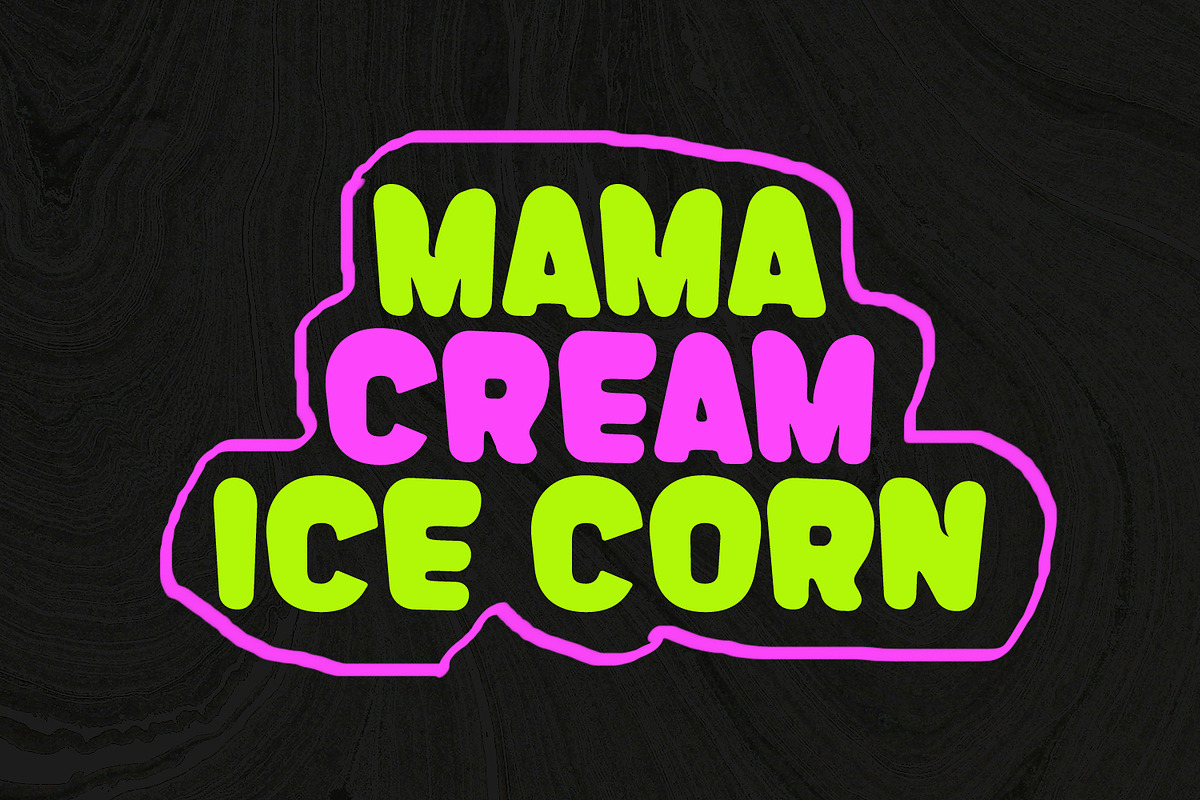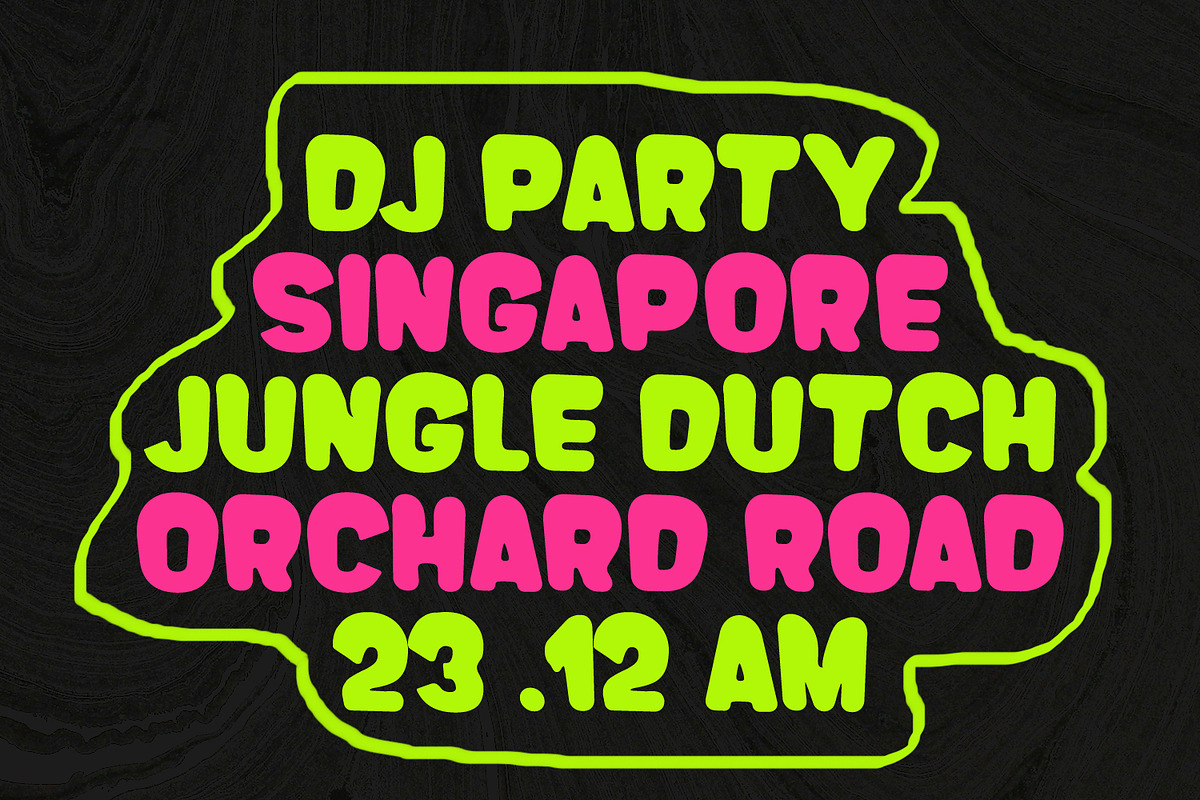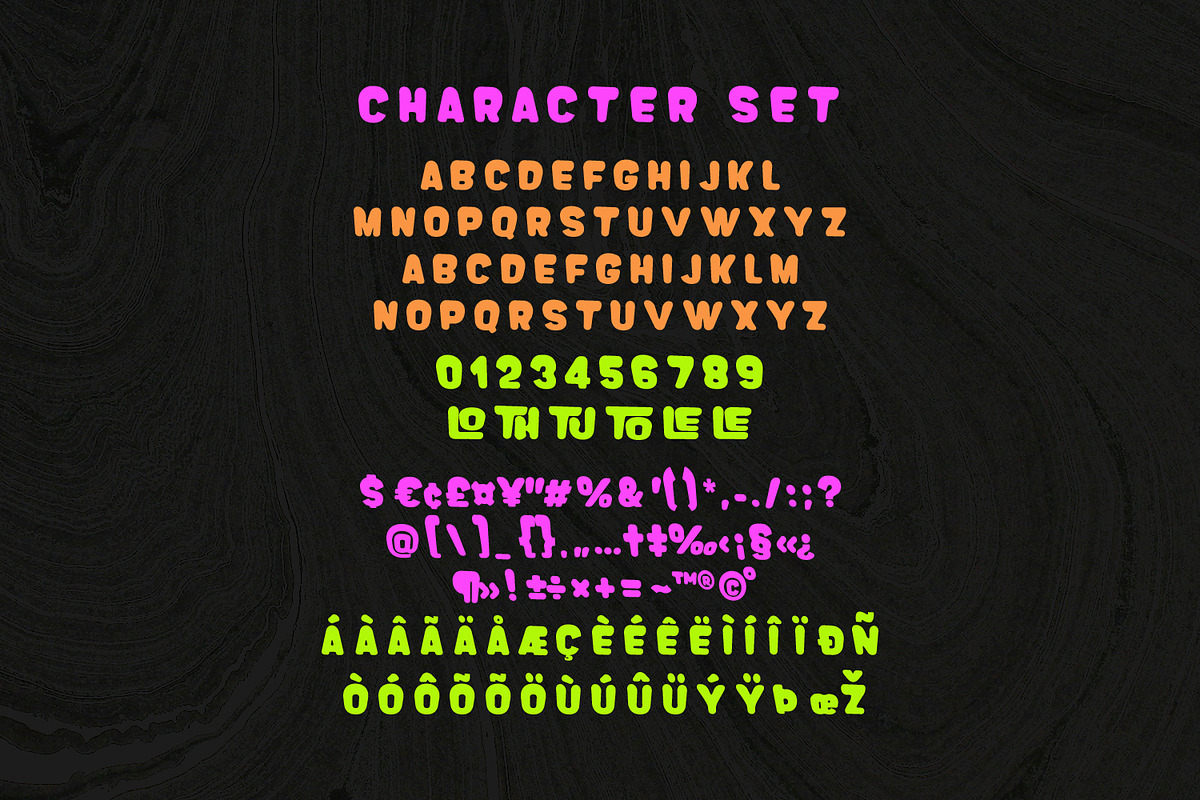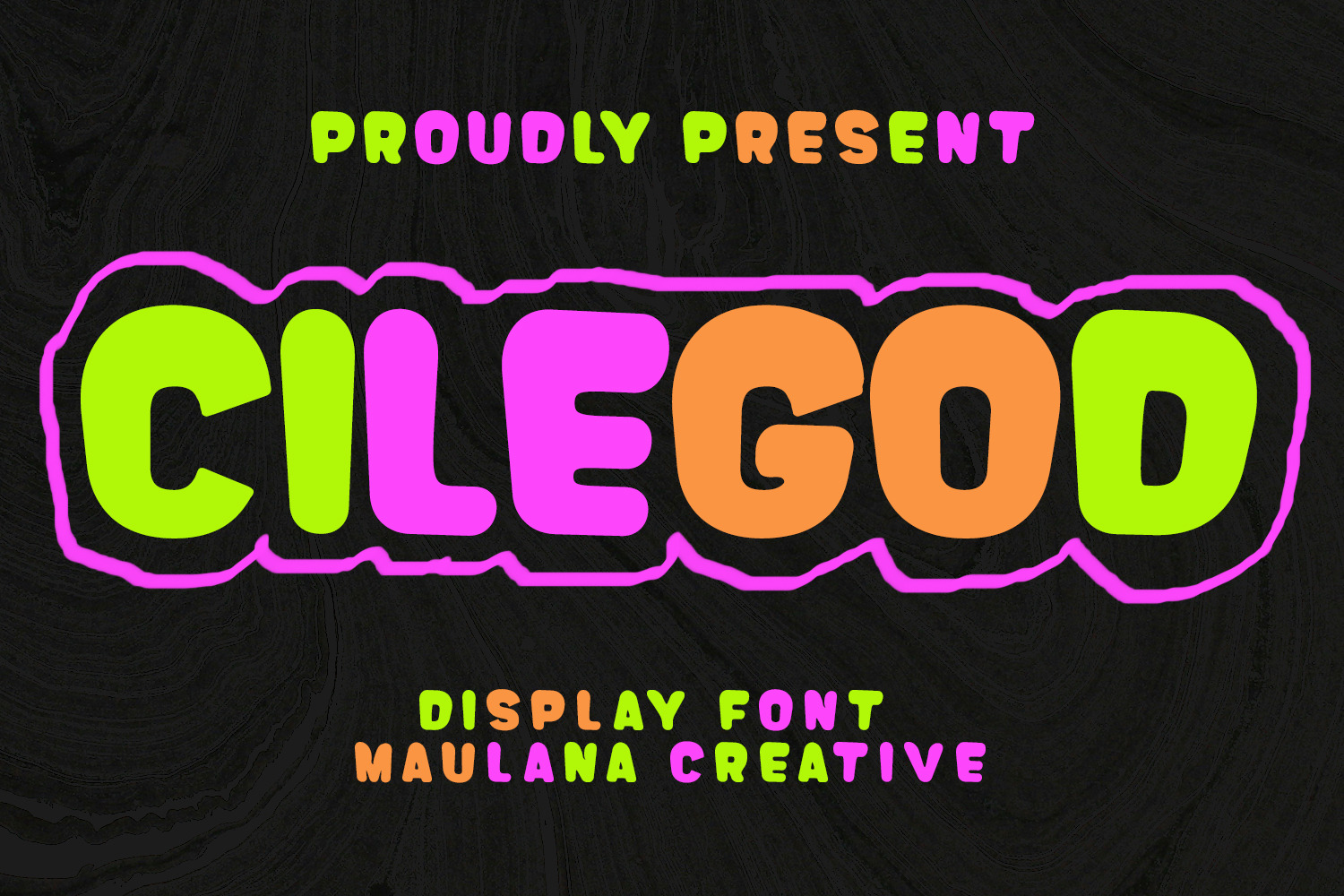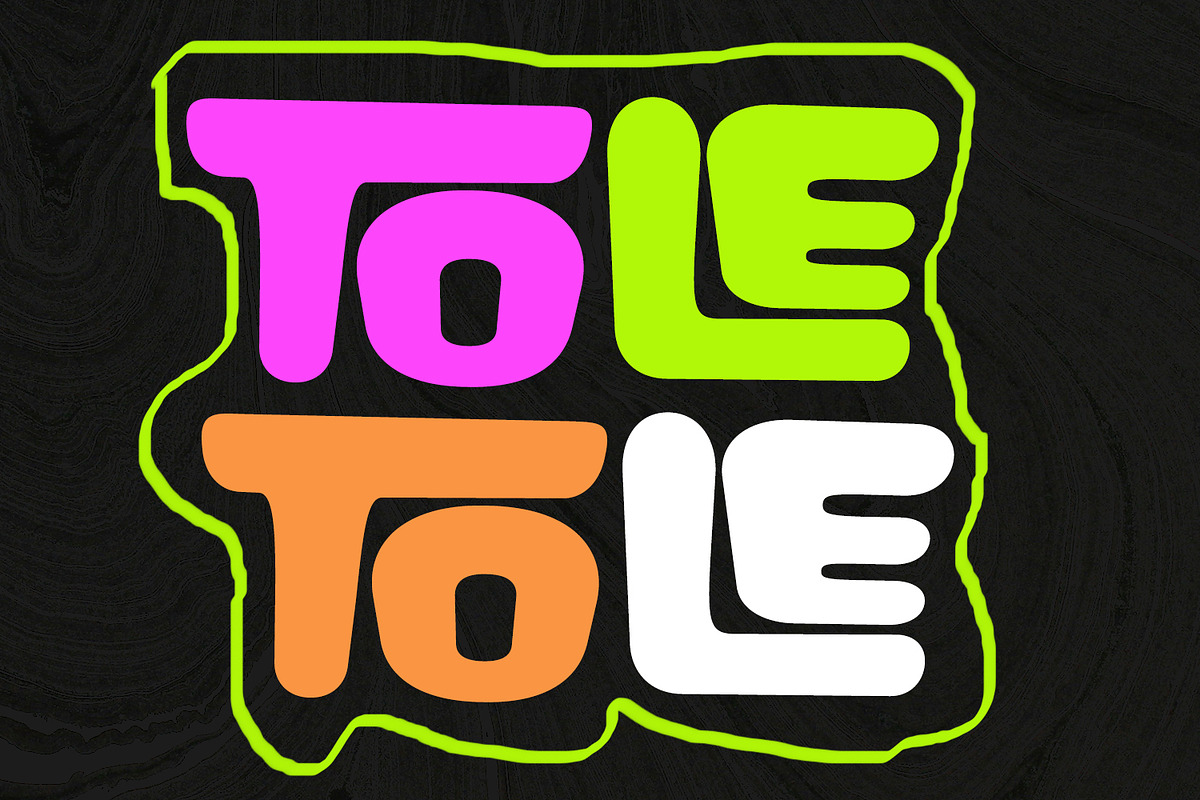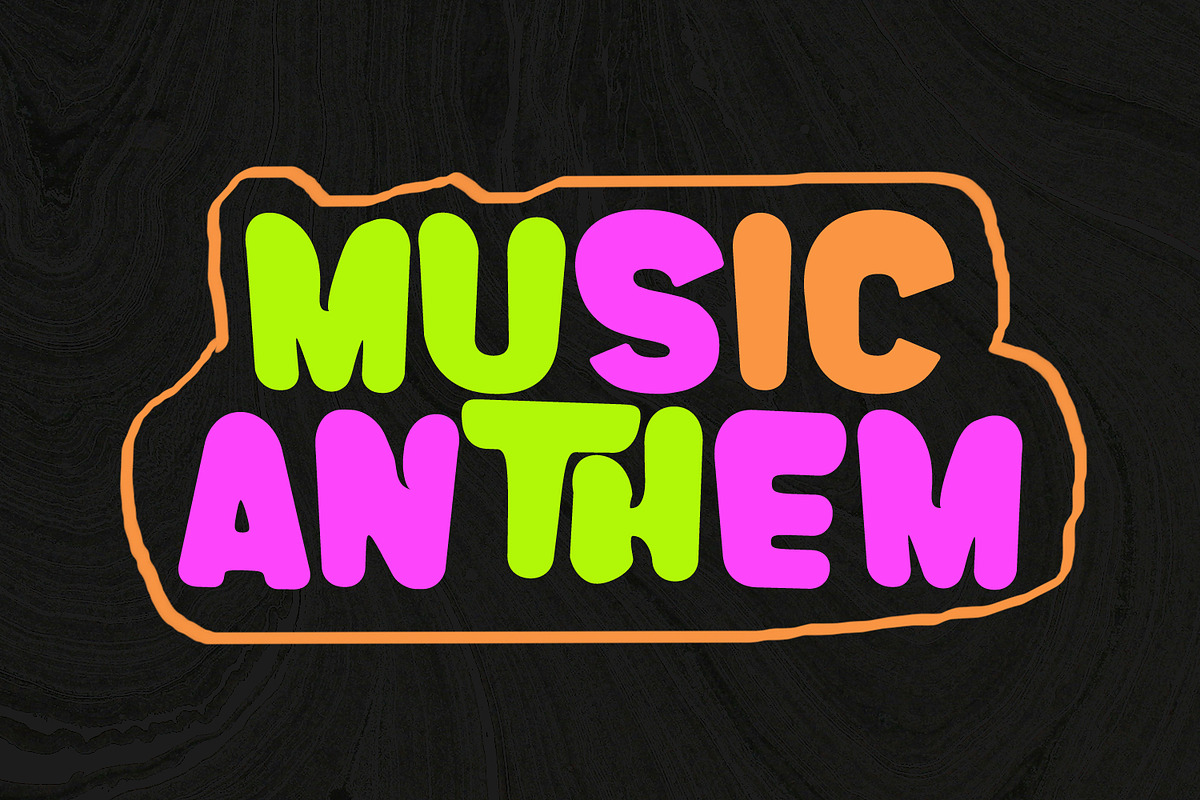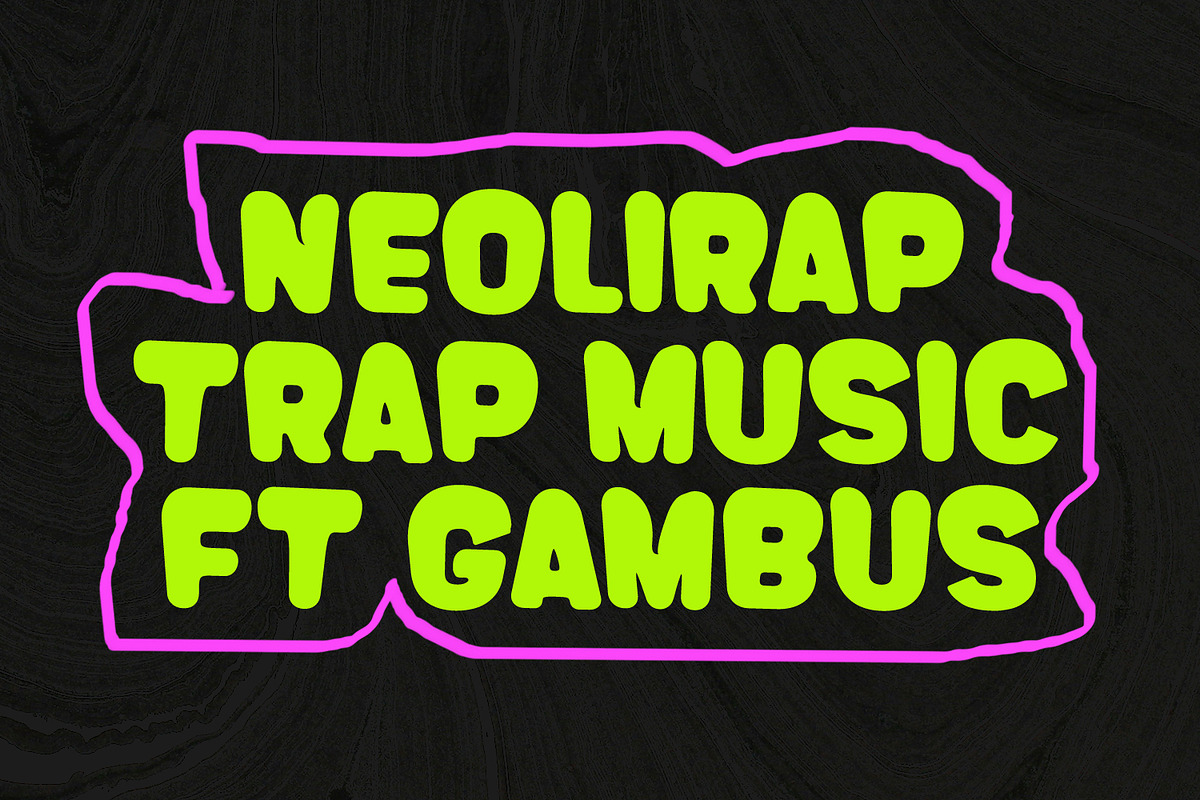
Cilegod Display Font
Cilegod is a modern display font. With bold stroke, fun character with ligatures. To give you an extra creative work. Cilegod font support multilingual language. This font is good for logo design, Social media, Movie Titles, Books Titles, a short text even a long text letter and good for your secondary text font with script or signature typeface. Make a stunning work with Cilegod Display font.